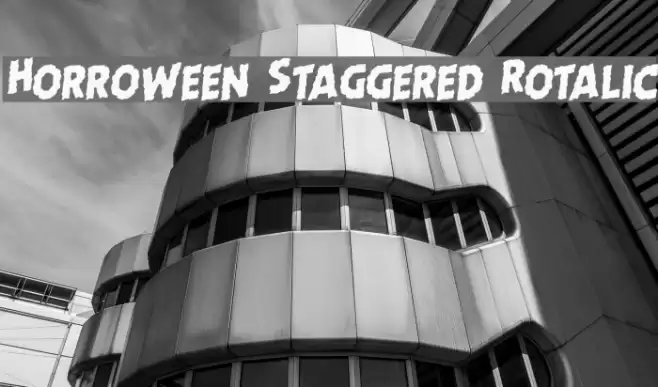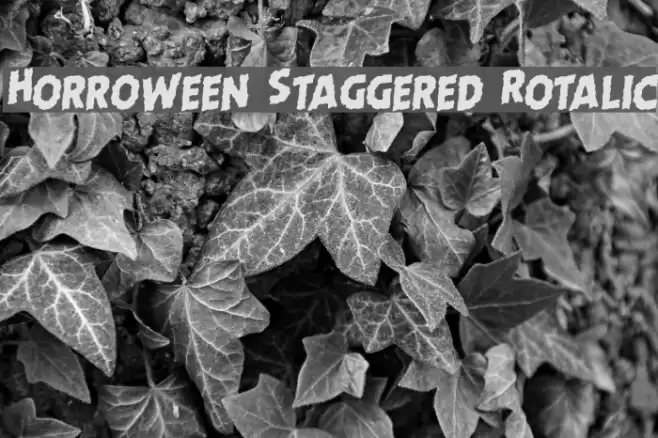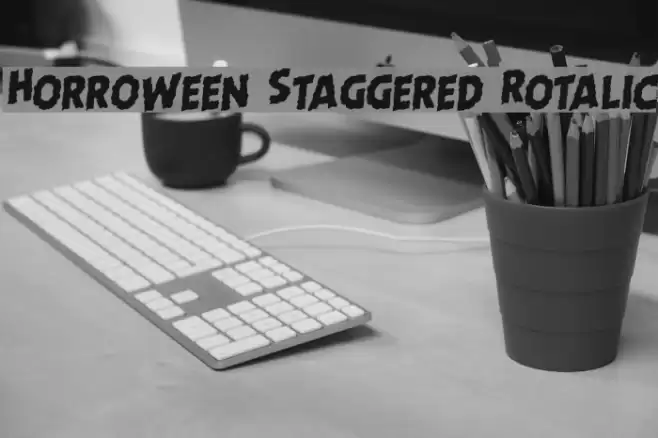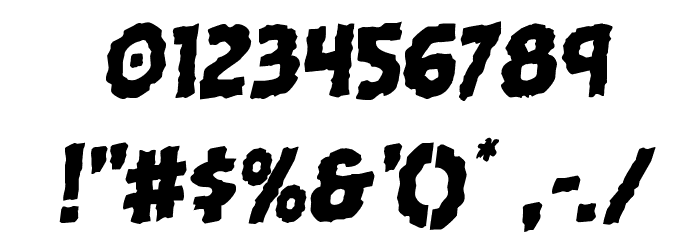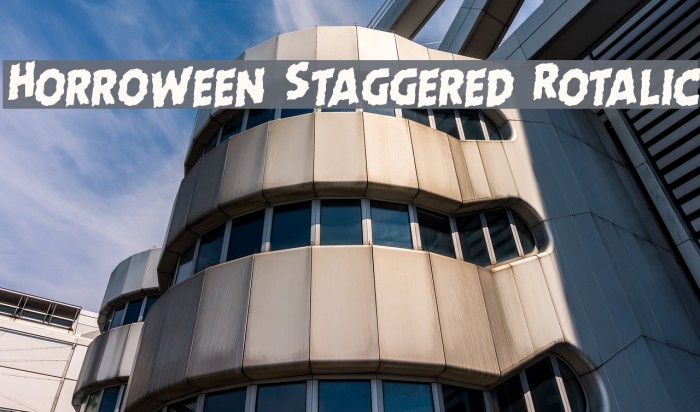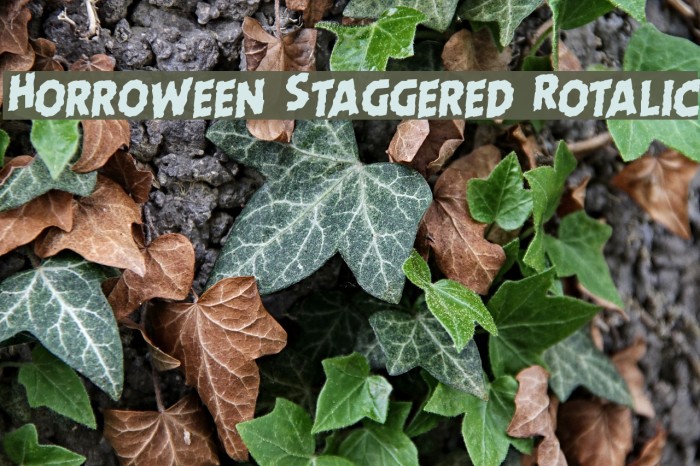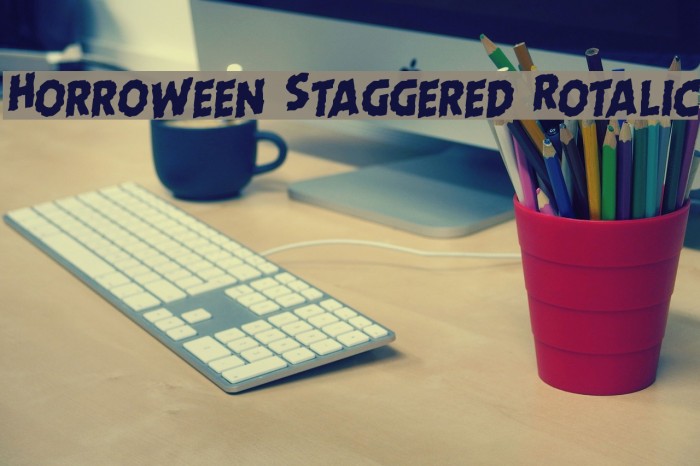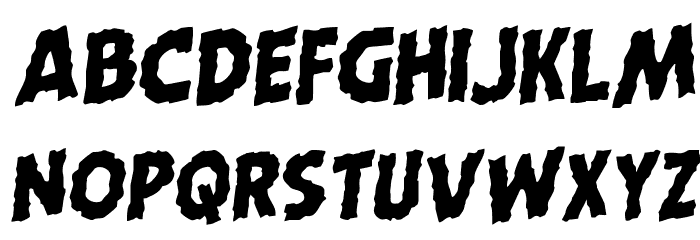
Horroween Staggered Rotalic Font
Horroween Staggered Rotalic Description
This font features a jagged, uneven design that gives it a spooky and unsettling appearance, perfect for Halloween-themed projects. The letters are bold and staggered, creating a sense of movement and chaos. The uppercase and lowercase characters maintain a consistent style, with sharp edges and irregular shapes that enhance the eerie vibe. Numbers and special characters follow the same design principles, ensuring a cohesive look across all text elements. The font's unique style makes it ideal for creative and thematic uses where a sense of horror or mystery is desired.
A jagged, bold font with a spooky, chaotic style ideal for Halloween themes from Uncategorized fonts.
- Proposed Projects: Halloween invitations, horror movie posters, themed event flyers, spooky merchandise designs.
- Use Case: Headlines, Logos, Themed graphics